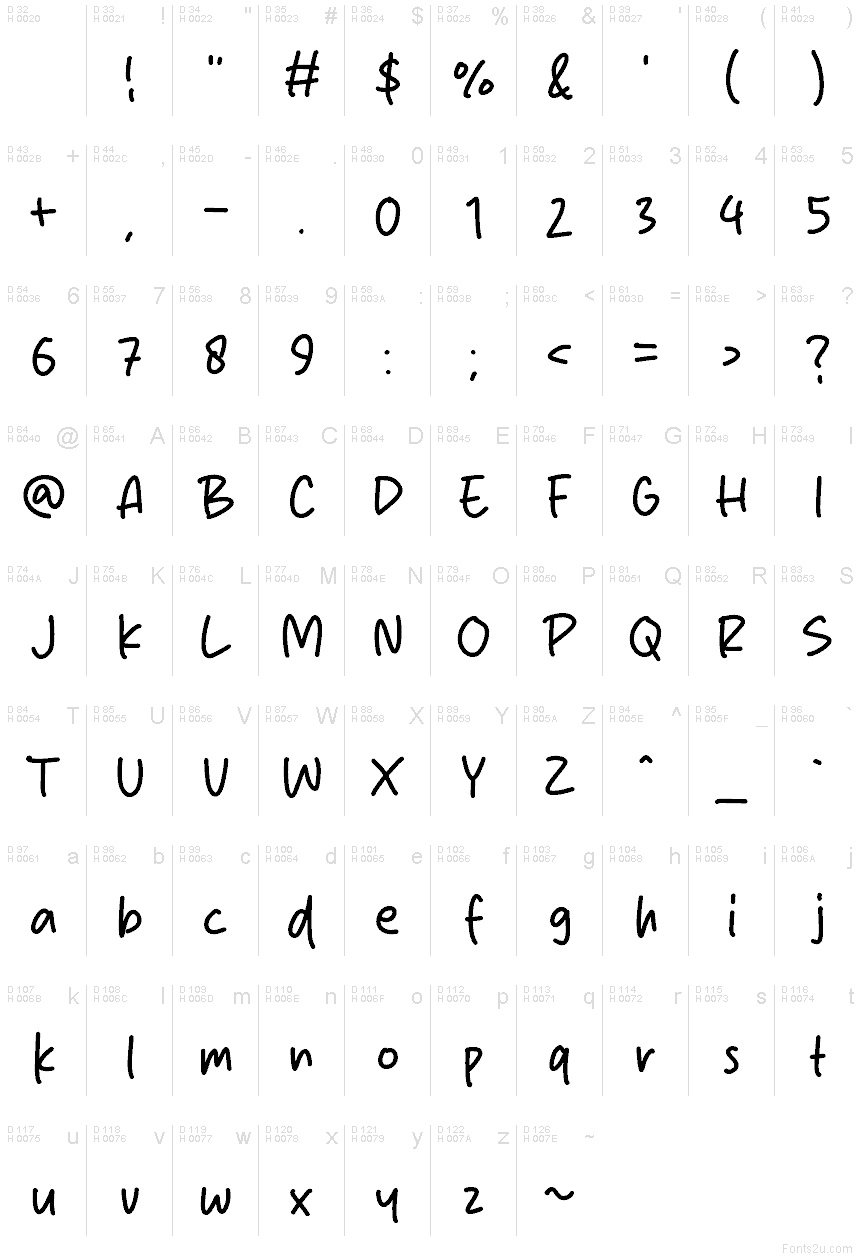
Chunky Strip
Chunky Strip font by Origin Type is a free handwritten font that brings a modern flair with its organic appearance. The script style and casual feel make this an artistic, fun choice. Smooth lines add more beauty to the already charming design where creativity meets readers with fascinating concepts.
Magazines, blogs, branding projects, and stationery are all options where Chunky Strip can shine. Be professional and classy or daring at heart using this typeface in websites, logos, or marketing material. Designers can also use the font in clothes design and accessories or cosmetics products as well as for greeting cards for loved ones on special occasions.